50+ Canva Wedding Fonts
If you are looking for the best fonts to design your wedding invitations, menus, and signage, then Canva is the right platform. The platform has many elegant and graceful fonts that can bring your design vision to life.
Whether you are going for something elegant, modern, charming, or minimalist, choosing the right font can make all the difference in creating wedding projects that reflect your style.
However, finding the right elements for your design can be quite overwhelming. To save you time, I created this list of 50+ Canva wedding fonts. The mentioned fonts are free and can be combined to create eye-catching wedding projects.
50+ Canva Wedding Fonts
1. Mistrully:
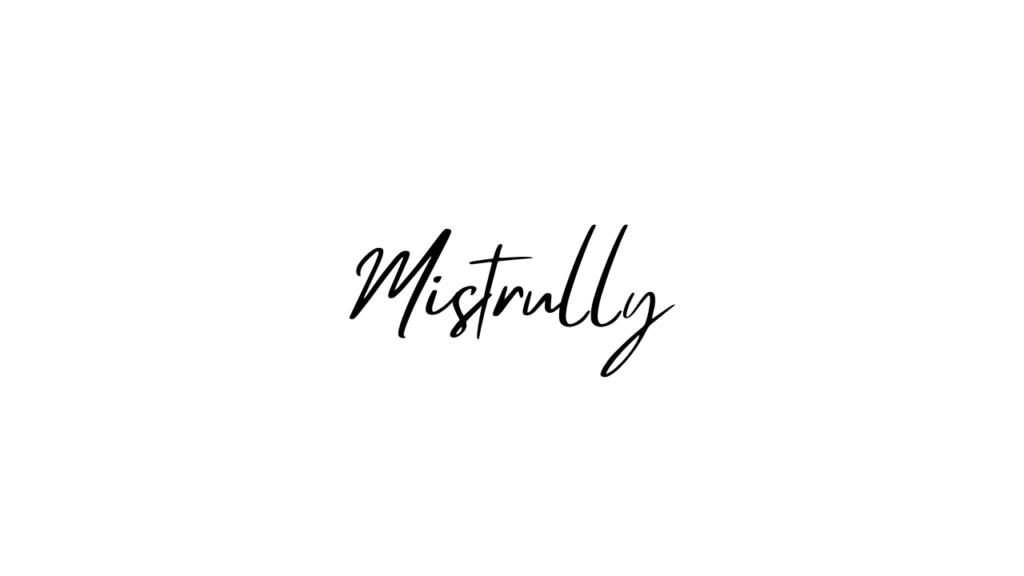
2. Roller Coaster Serif:
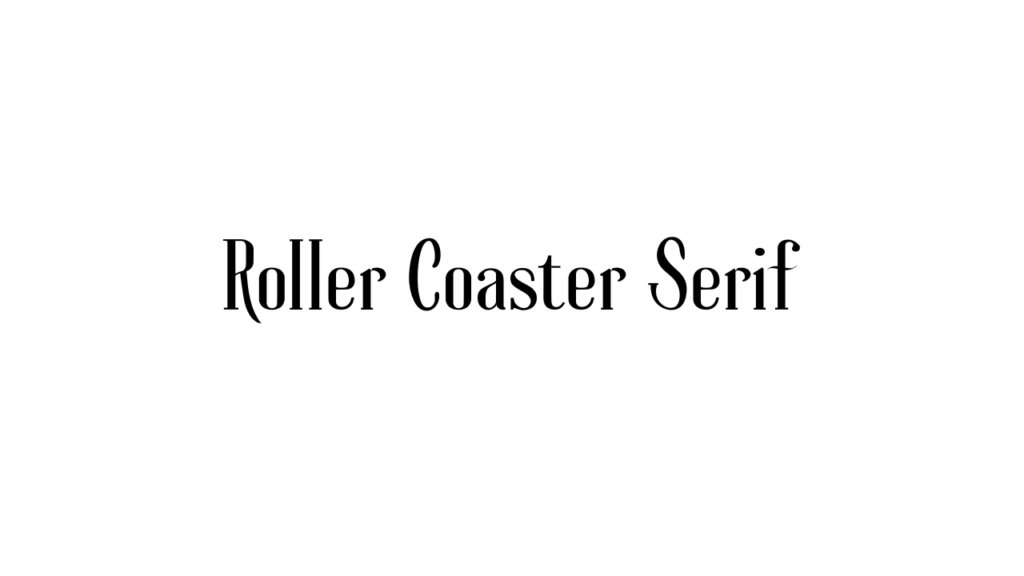
3. Holiday:
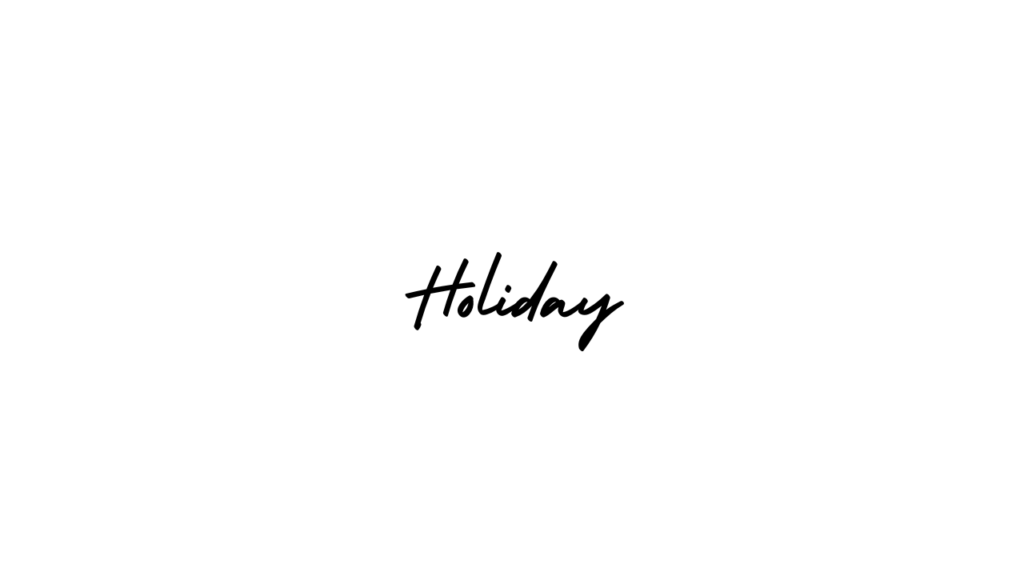
4. Westonia:
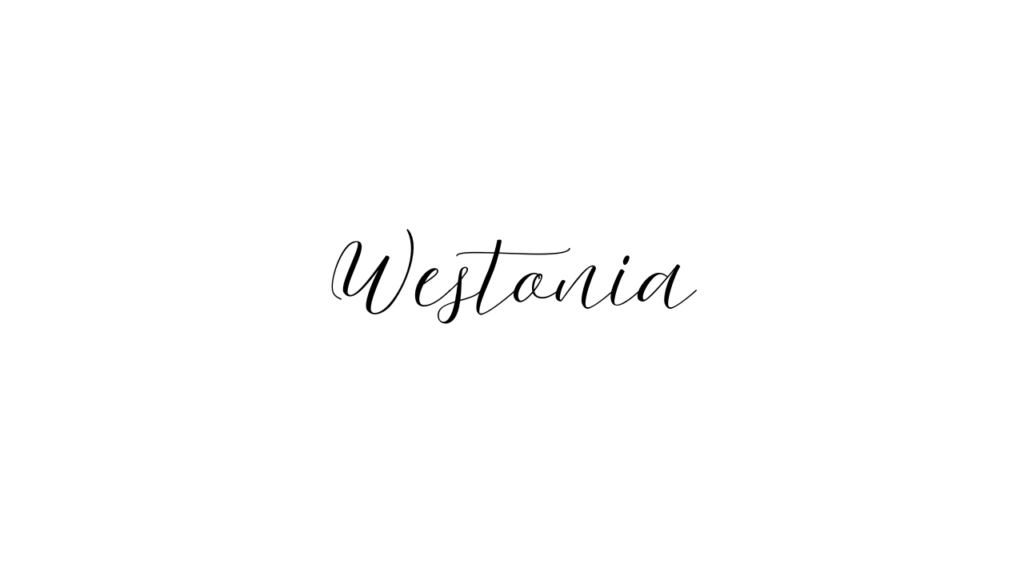
5. Gistesy:
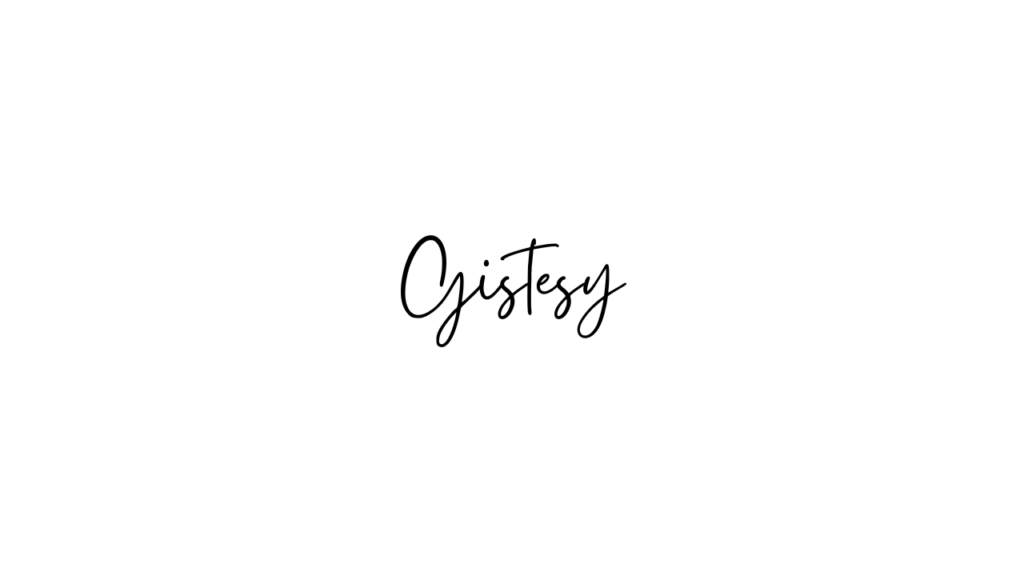
6. Day Dream:
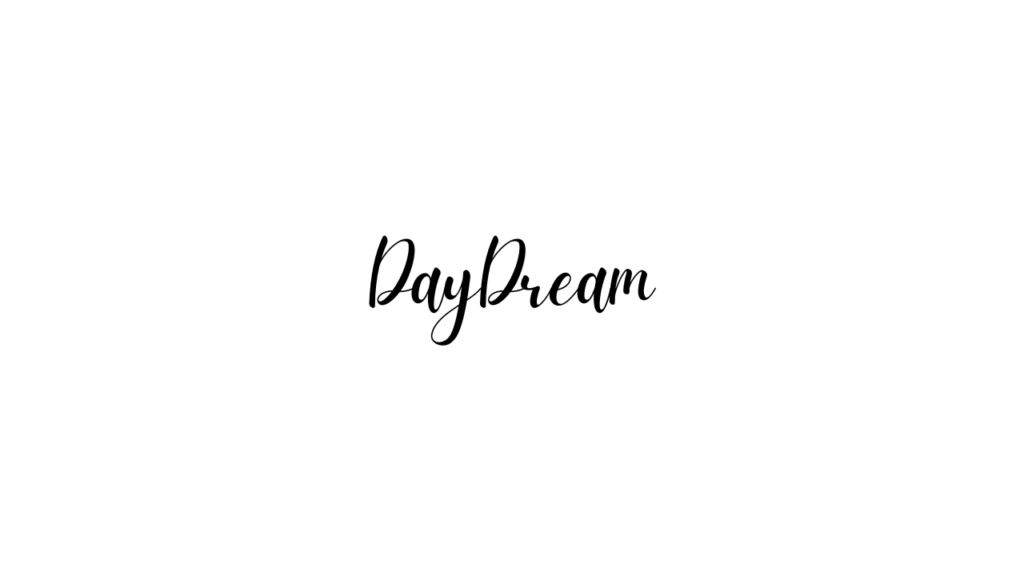
7. Pinyon Script:
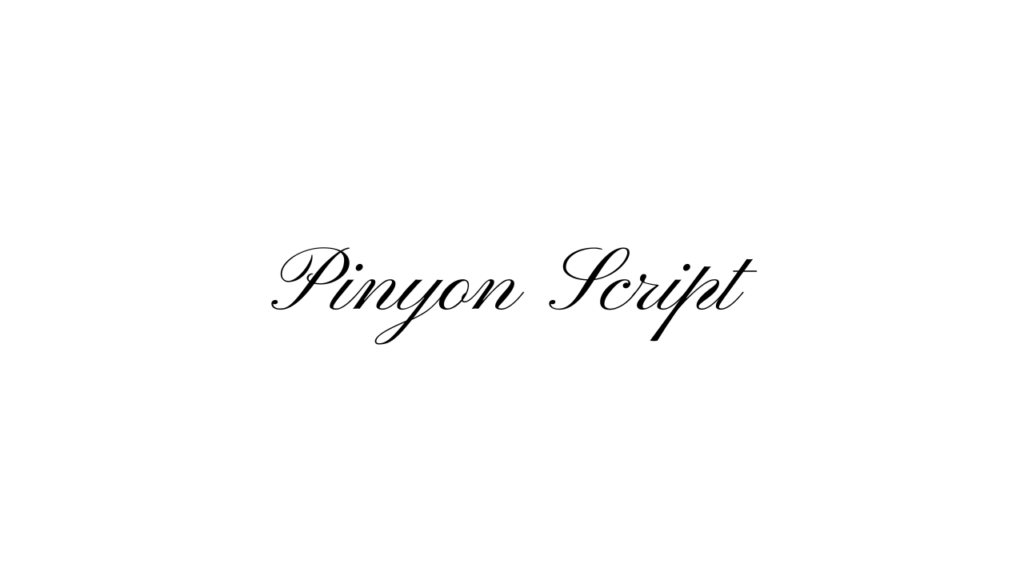
8. Meow Script:
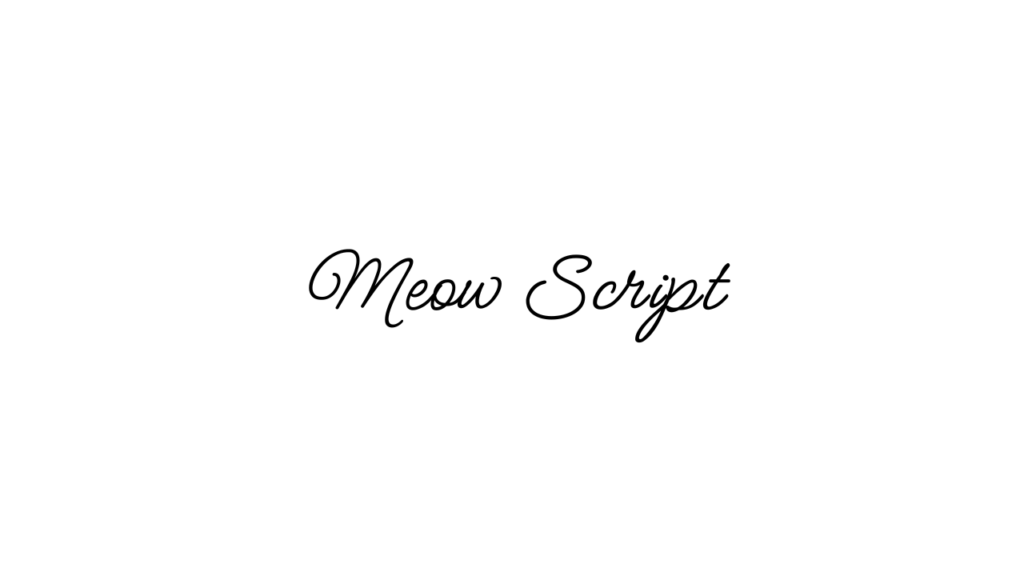
9. Themysion:
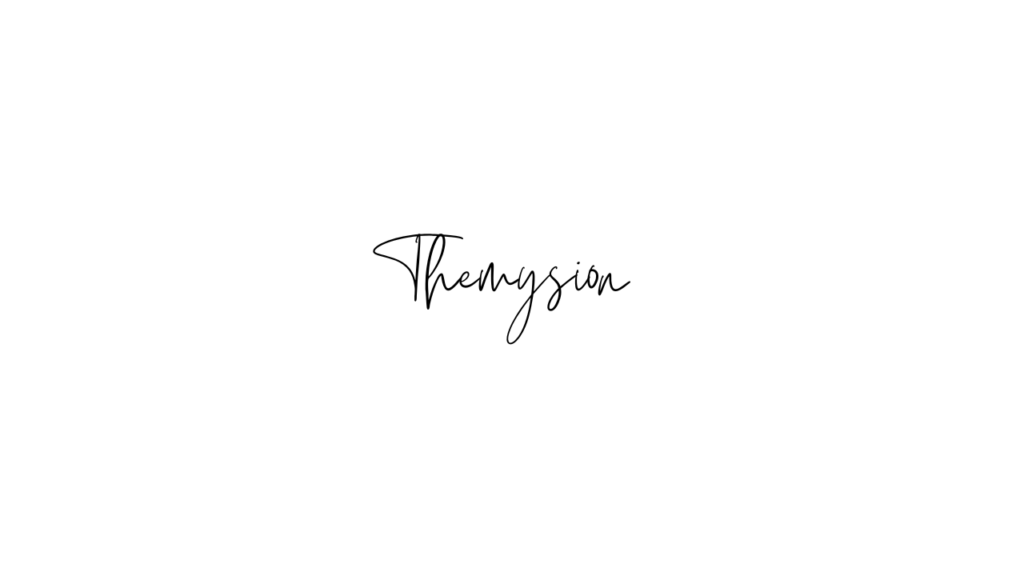
10. Twister:
11. Pony Club:
12. Halimum:
13. Sunday:
14. Cinzel Decorative:
16. Allura:
17. Alex Brush:
18. Angelina:
19. Lovelo:
20. Balgin:
21. Above The Beyond Script:
22. Amatic SC:
23. Bellaboo:
24. Callem:
25. Monotype Corsiva:
26. Eyesome Script:
27. Charm:
28. Comforter:
29. Copperplate Gothic 29 BC:
30. Distillery Script:
31. Clicker Script:
32. Lavonia Classy:
33. Days:
34. Diphylleia:
35. Euphoria Script:
36. Enchants:
37. Feeling Passionate:
38. Smooth Fantasy:
39. Trend Slab Four:
40. Faseh:
41. Feather:
42. Gatwick:
43. Livvic:
44. Gellatio:
45. Tallow Regular:
46. Gladiola:
47. Harmattan:
48. Kabel:
49. Kite One:
50. Kitten:
51. Lovely:
52. Best Light:
53. Track:
54. Great Vibes:
Conclusion
I hope you find this list of 50+ Canva wedding fonts helpful. Take your time experimenting with different combinations, and choose something that feels right and adds a personal touch to your special day. Creating wedding details yourself can help you save money and can become a memorable part of your life.